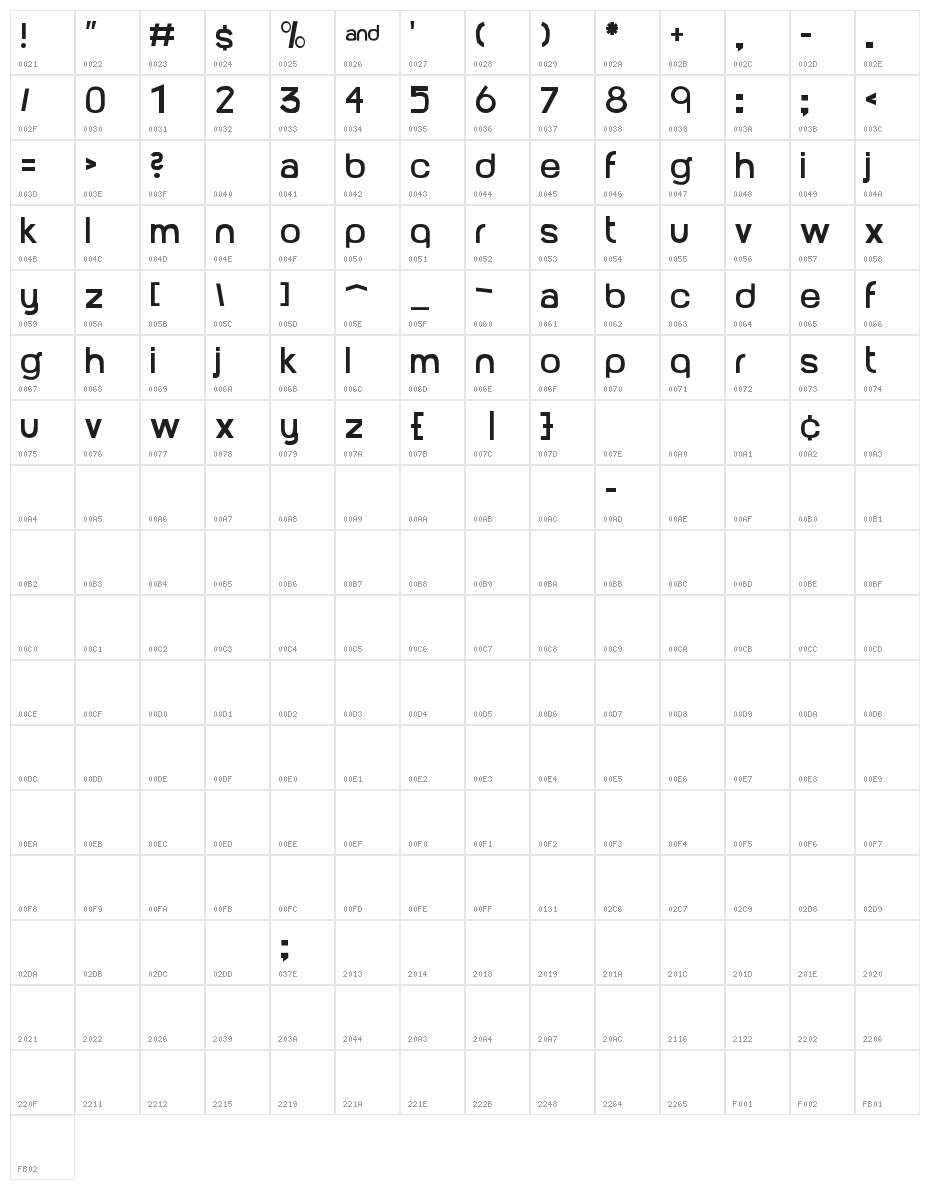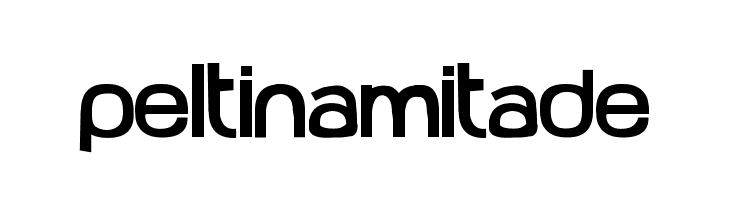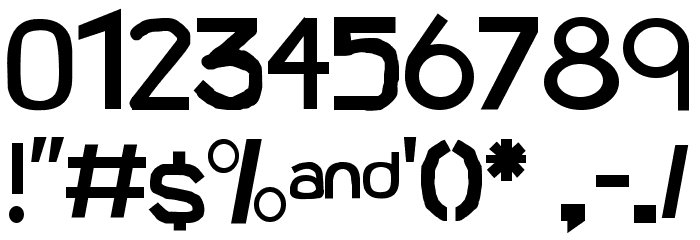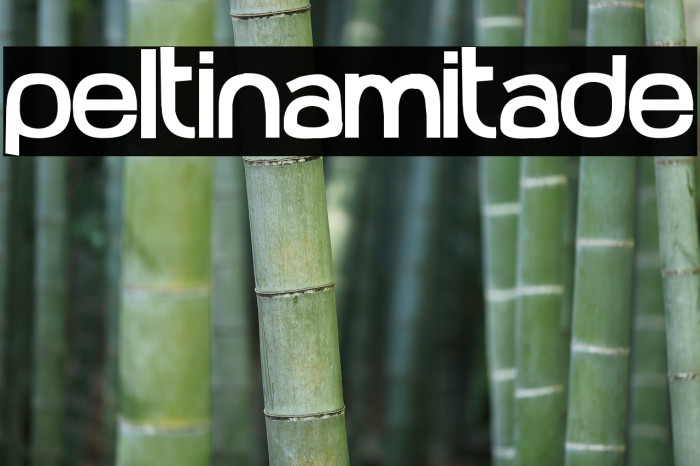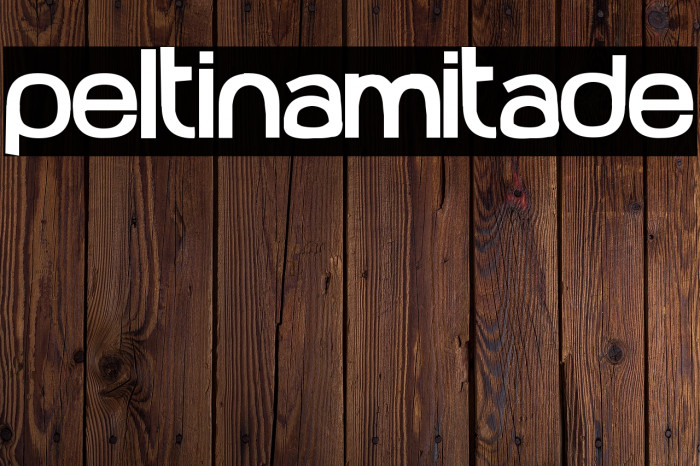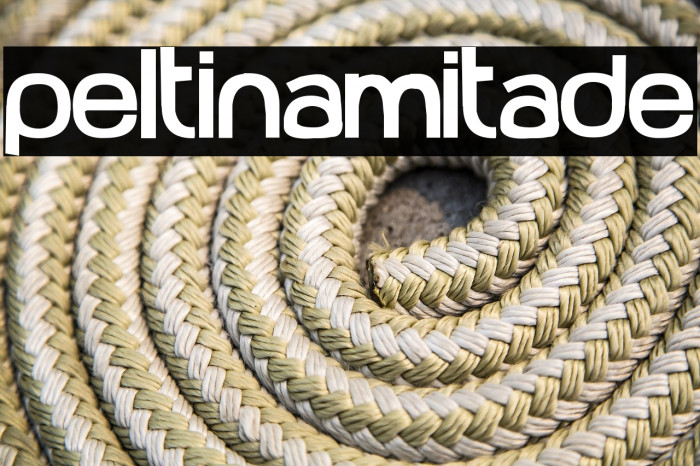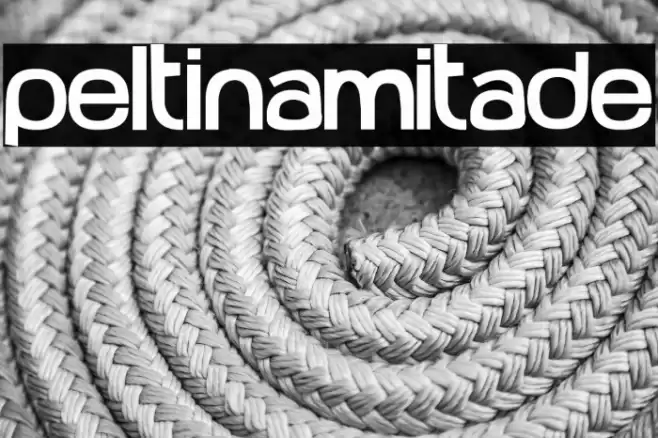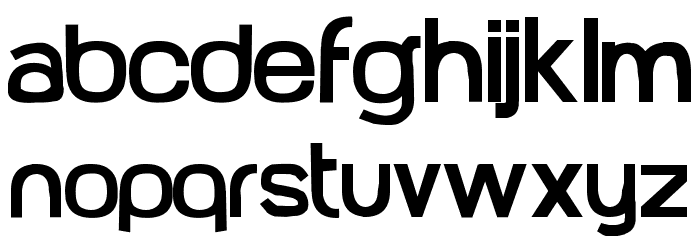
Peltinamitade Font
Peltinamitade Description
This font exhibits a modern, geometric sans-serif style with clean lines and a bold presence. The characters are uniformly structured, providing a sense of balance and clarity. The rounded edges and consistent stroke widths contribute to its approachable and contemporary appearance. The numerals and special characters maintain the same geometric aesthetic, ensuring a cohesive look across all text elements. This font is versatile, suitable for various design needs where a modern and clean look is desired.
| Use Case | Headlines, Logos, Digital Interfaces |
| Proposed Projects | Ideal for branding, advertising, digital interfaces, and editorial design projects. |